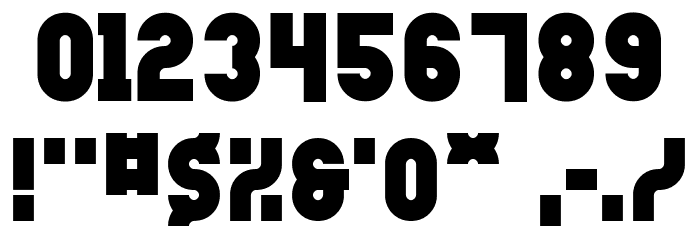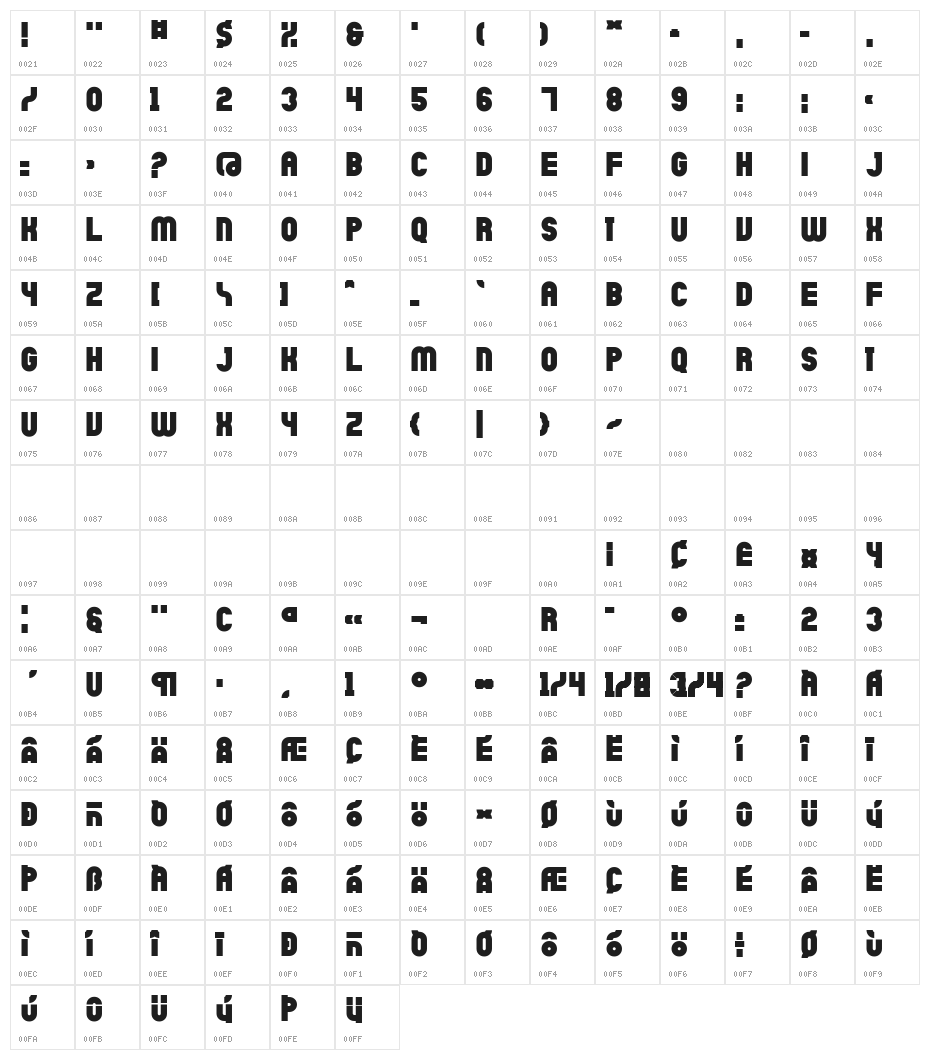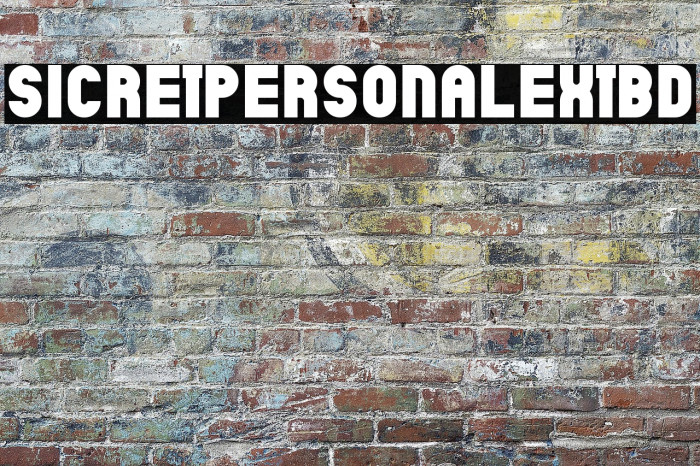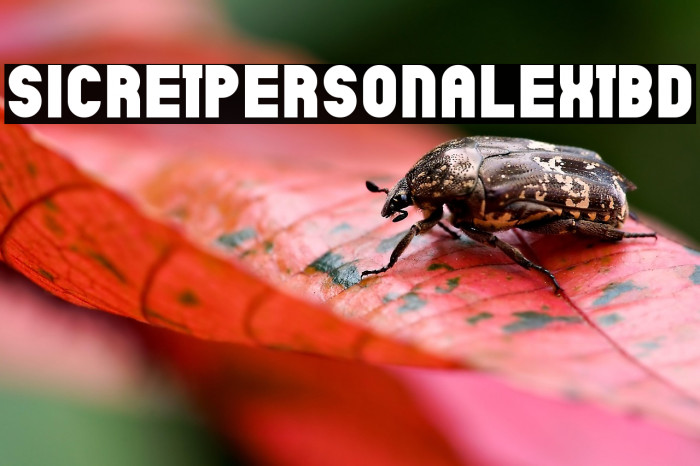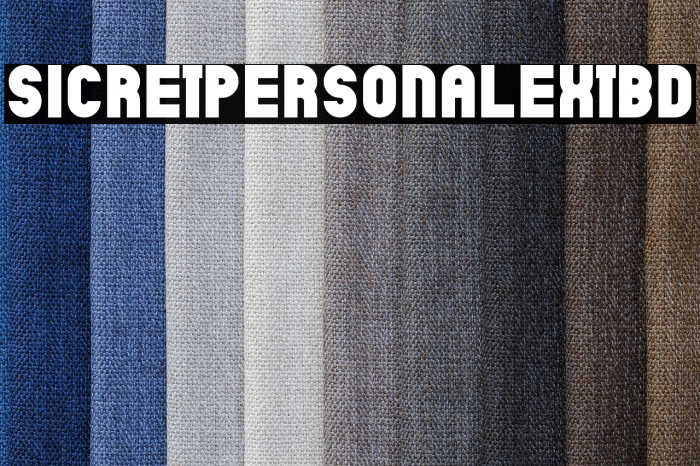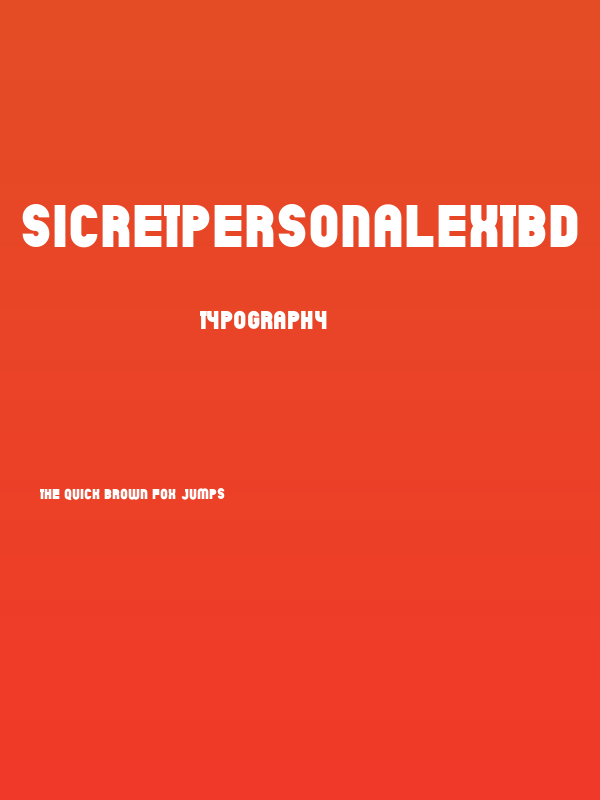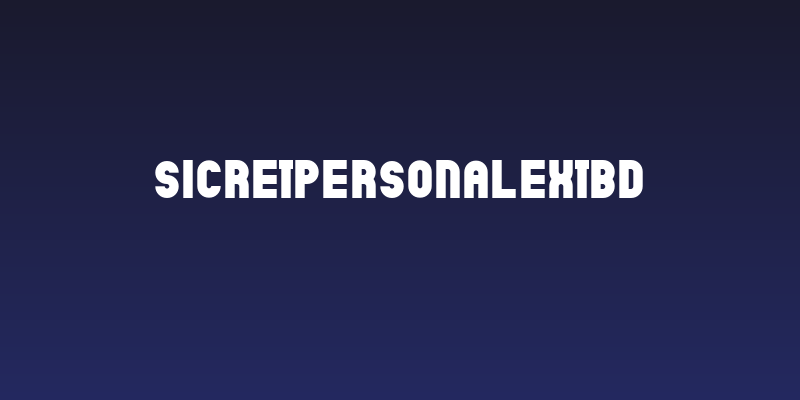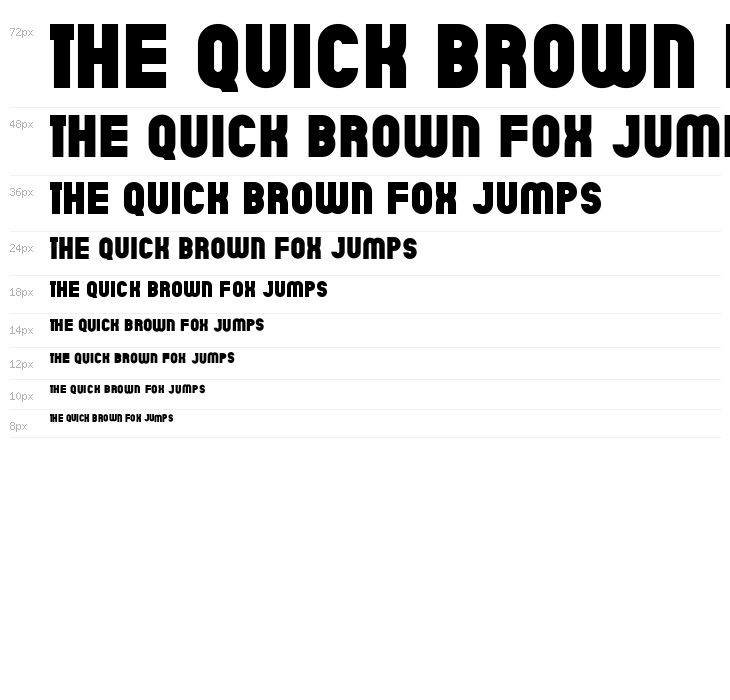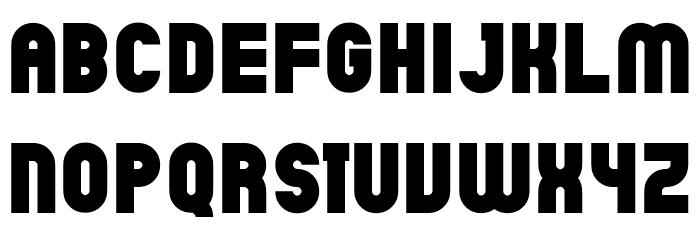
SicretPERSONALExtBd Font
SicretPERSONALExtBd Description
This bold and striking font features a geometric and blocky design, characterized by thick, uniform strokes and a strong presence. The uppercase letters are particularly robust, with a consistent height and width that convey a sense of stability and strength. The lowercase letters maintain the same boldness, ensuring readability and impact. Numbers and special characters are designed with the same attention to detail, making them stand out in any context. The font's overall style is modern and assertive, suitable for projects that require a bold statement.